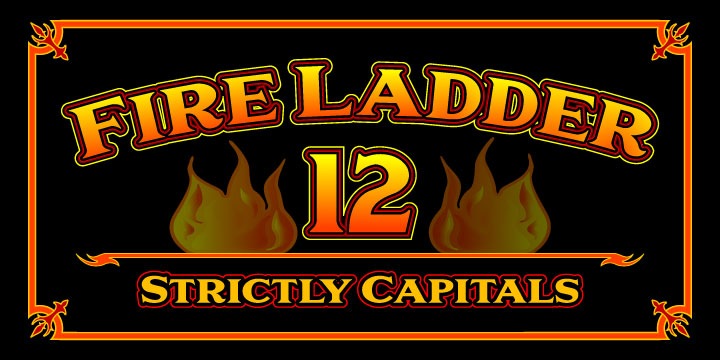
Fire Ladder Font is perfect for emergency services branding, fire department logos, safety signage, rescue team materials, industrial warning labels, emergency response communications, heroic poster designs, and crisis management publications.
What makes Fire Ladder Font exciting is its bold heroic character that embodies the courage and reliability of emergency responders through strong, ladder-inspired letterforms. The structured design and emergency-ready aesthetics create immediate recognition while communicating safety, strength, and life-saving dependability.
Fire Ladder Font family includes regular, bold, condensed, stencil, and emergency versions, plus safety symbols, rescue icons, and firefighting ornaments that enhance the heroic typography experience with authentic emergency service appeal.
Answer the call with Fire Ladder Font Free Download, the ultimate choice for organizations dedicated to safety and emergency response excellence. This commanding typeface embodies the spirit of heroic service through letterforms that seem forged in the heat of emergency action and strengthened by countless rescue missions. The expertly structured characters feature ladder-like proportions that ensure maximum visibility and instant recognition across all emergency applications, from detailed safety protocols to large-scale emergency signage. Fire departments and safety organizations consistently select this font for projects requiring immediate trust and heroic credibility that can save lives in critical situations. Its comprehensive emergency elements provide unlimited possibilities for creating life-saving communications that command attention and inspire confidence during crisis moments. Experience the powerful authority of emergency typography that transforms standard safety materials into heroic declarations of service, establishing your organization as a beacon of hope and protection in communities where every second counts.